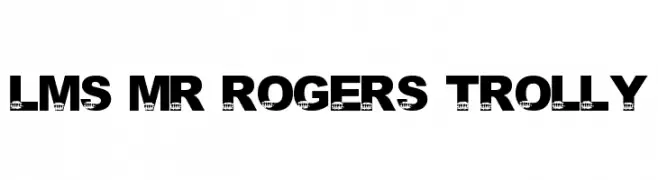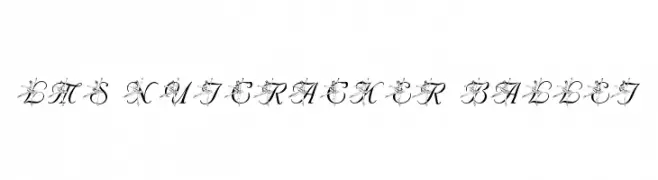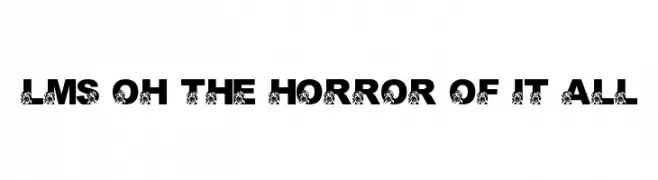
A bold, playful font with trolley graphics at the base of each letter.
A bold serif font with playful rabbit illustrations integrated into each character.
A playful font with letters integrated into a classic van design, offering a nostalgic and decorative style.
A playful font with cheerleader graphics and bold, uppercase letters.
A decorative font with ballet-themed embellishments and elegant flourishes.
A whimsical font with bold letters and playful squirrel illustrations.
A bold, decorative font with maple leaf motifs inside each character.
A bold, horror-themed display font with graphic elements.
A bold, decorative font featuring embedded Olympic-themed icons within each character.
A whimsical font with characters displayed on notepads held by cartoon figures, perfect for playful projects.